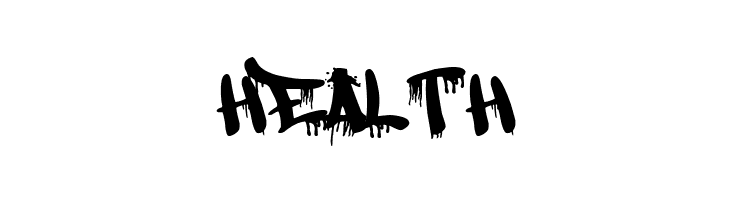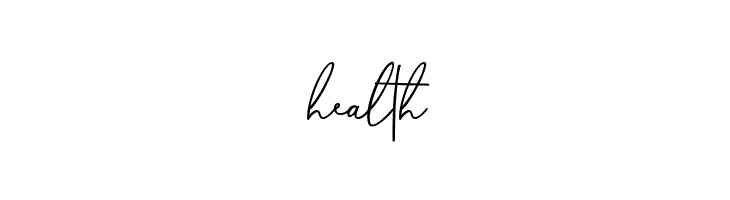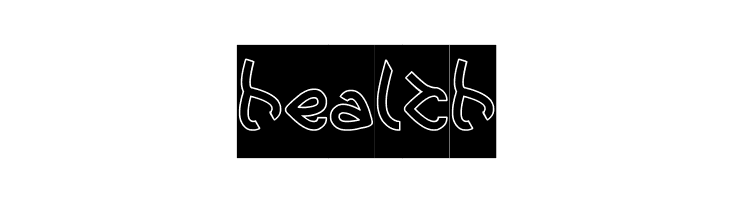
A modern, bold sans-serif font with geometric influences.
An elegant, flowing script font with smooth, cursive strokes and graceful curves.
A bold, expressive handwritten font with dynamic and fluid letterforms.
A modern, elegant script font with a dynamic slant and fluid curves.
A clean, modern sans-serif font with rounded edges and uniform stroke width.
A bold, graffiti-inspired font with drips and splatters for an edgy, urban look.
A graceful script font with flowing, interconnected letters and elegant curves.
An elegant, flowing script font with thin, graceful strokes and intricate loops.
A decorative font with hollow, heart-shaped elements, perfect for romantic or playful designs.
A whimsical, heart-themed decorative font with hollow characters.